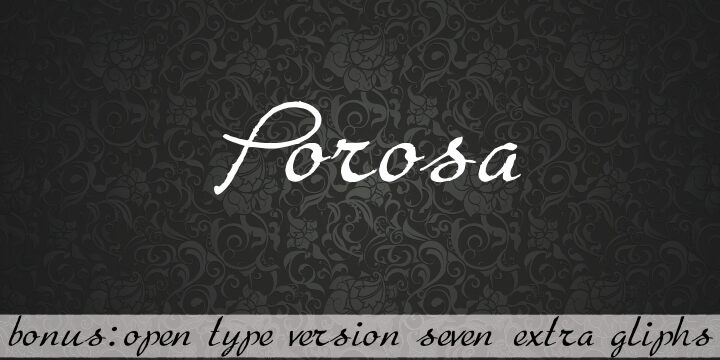
Porosa by Paulo W. is a free calligraphic script shaped by loose joins, thin strokes, and extravagant pen loops. Long flourishes repeatedly sweep above and below the letters.
Fashion branding and wedding invitations draw on different moods, yet both suit its rapid, signature-like movement and uneven stroke weight. Album covers and beauty packaging are equally convincing settings, since the looping forms can echo ribbon, thread, or other fine decorative linework.